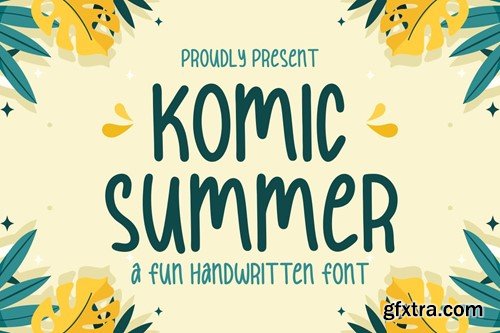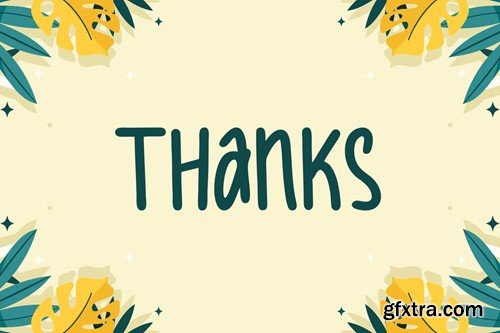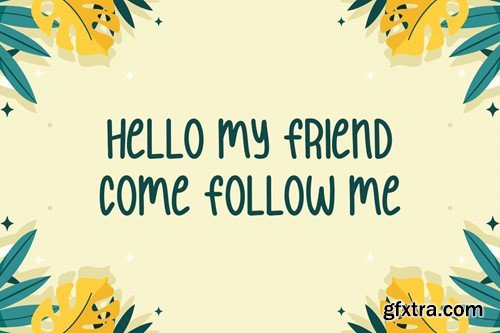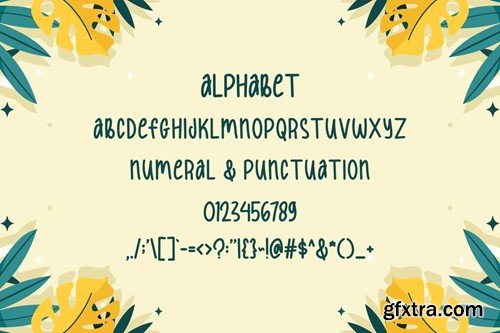
Komic Summer Font
Komic Summer Natural Handwritten Font works very well in upper and lower case. Perfect for birthday invitations, stationery, kids t-shirt designs, labels, logos, branding, packaging, calendars and more projects about kids! What you get: Thank you.